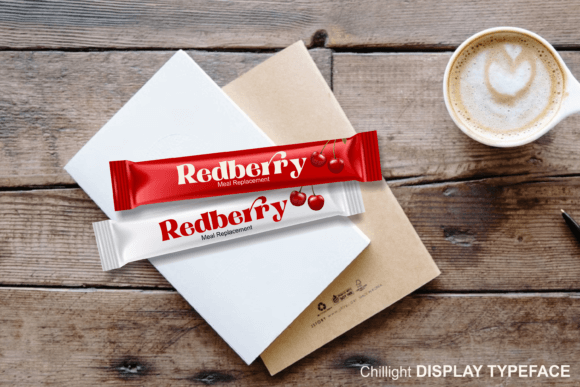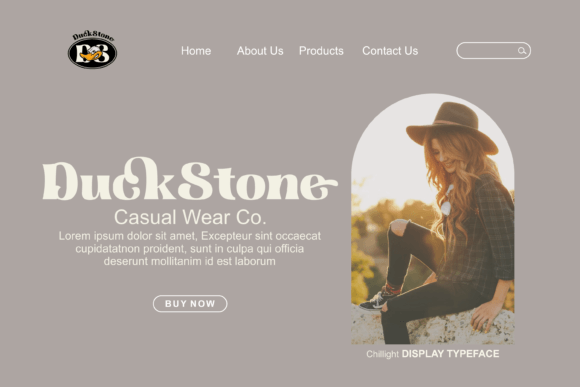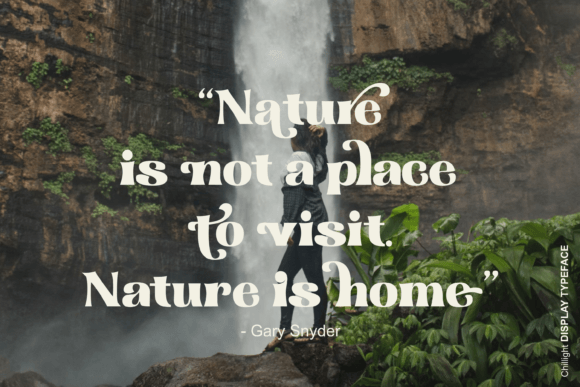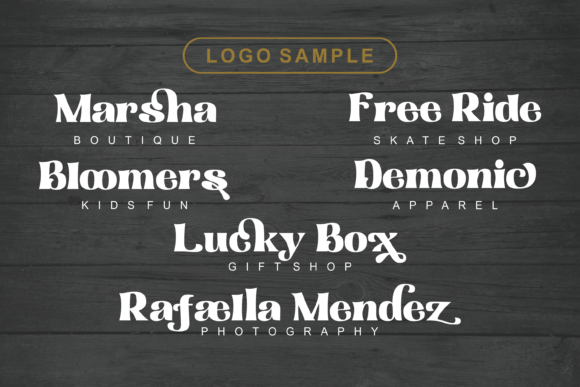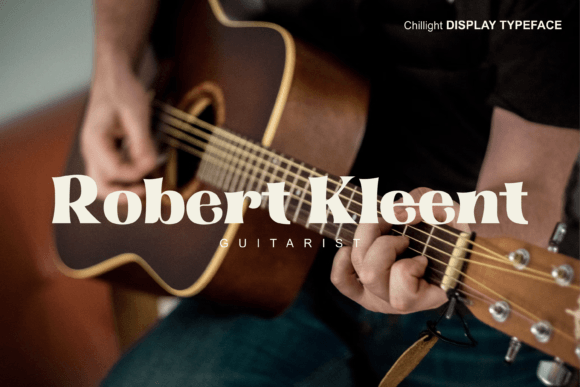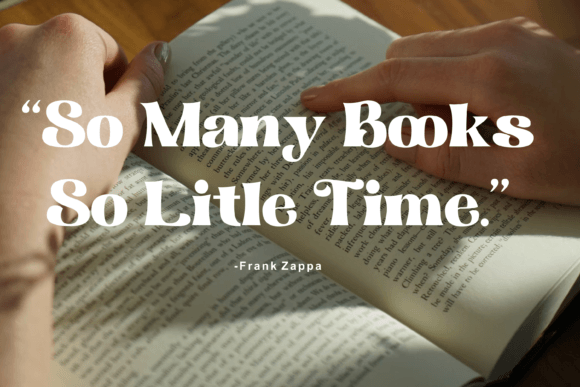
Discovering the Perfect Typographic Fit
As a designer, you’ve probably found yourself staring at a blank canvas, trying to conjure up the perfect font to bring your vision to life. It’s that moment of hesitation, when the possibilities seem endless and the pressure to create something amazing is mounting. But what if I told you that there’s a typeface out there that’s specifically designed to make your life easier?
Enter Chillight Font, a serif typeface that’s perfect for making a statement. With its narrow, sharp width and ends, Chillight Font is ideal for use at large sizes, making it a top choice for logotypes and headlines. Whether you’re working on a branding project or creating a bold, eye-catching display, Chillight Font is sure to bring your design to the next level.
- Unique Characteristics: Chillight Font features a unique blend of modern and minimalist design elements, making it ideal for creating clean and professional-looking designs.
Chillight Font Review
Overall, I found the Chillight Font to be a refreshing addition to the world of typography. The designer has done a great job of creating a font that’s both modern and soothing.
- The font’s unique, hand-drawn feel is reminiscent of traditional lettering, but with a modern twist.
- The subtle weight variations and rounded edges give the font a friendly, approachable vibe.
- The font is highly legible, making it perfect for body text and longer blocks of copy.
- The font may not be the best choice for headlines or titles, as it can be a bit too soft and subtle.
While the Chillight Font has some limitations, its unique feel and high legibility make it a great choice for certain projects. I’d recommend it for body text, quotes, or any other situation where a soothing, modern font is needed.
Tips for Getting the Most Out of Chillight Font
Here are some tips to help you get the most out of Chillight Font:
- Use it sparingly to create a modern and minimalist look.
- Pair it with other fonts to create a unique and visually interesting design.
- Experiment with different font sizes and colors to create contrast and emphasis.
Chillight Font is commonly used in the following design applications:
- Modern and minimalist designs, such as social media graphics, posters, and flyers.
- Custom typography, logos, and graphics that require a unique and modern look.
- Presentations, reports, and documents that require a clean and modern look.